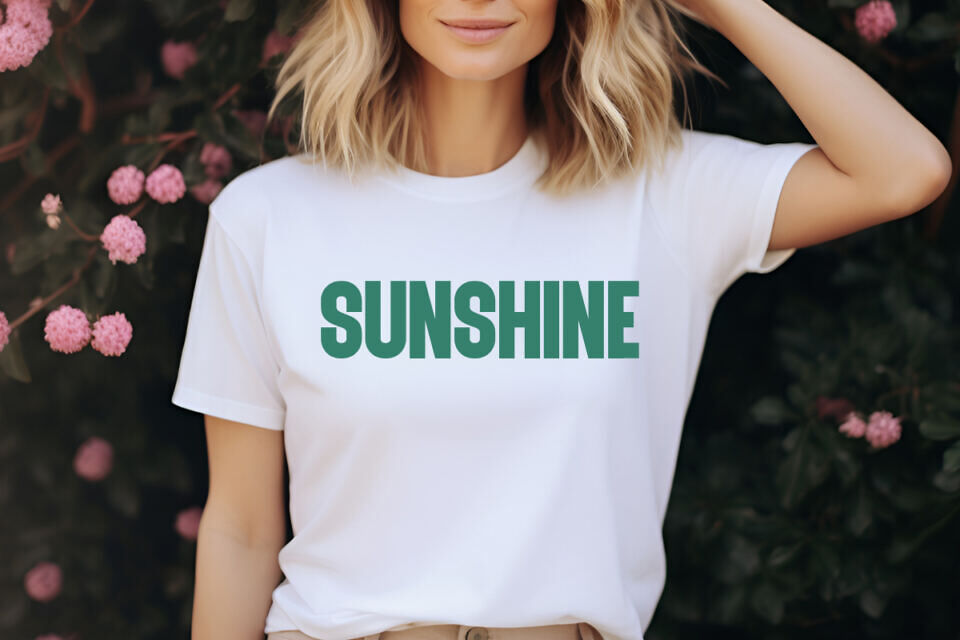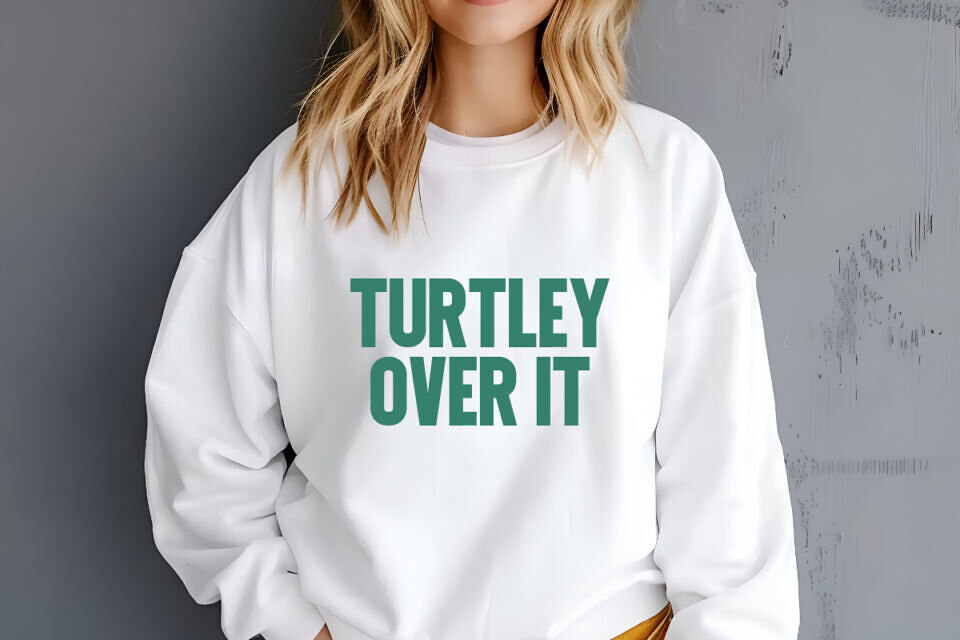
Blush is a bold condensed sans serif font engineered to deliver a strong, striking, and modern aesthetic to your creative designs. Featuring exceptionally solid, tall, and narrow geometric letterforms, this display typeface provides maximum legibility and structural presence for heavy headers, editorial layouts, and impactful branding projects.
It serves as an essential tool for the thriving Print on Demand (POD) marketplace, fitting flawlessly onto custom apparel, bold t-shirt layouts, statement hoodies, stickers, mugs, and commercial posters.